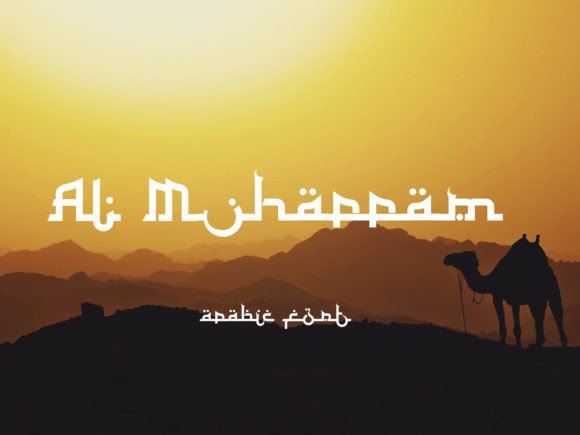
Step into the enchanting world of Al Muharram, a decorative font family that will transport your designs to the heart of classic Arabic calligraphy. Artnivora.std, the mastermind behind this exquisite creation, has crafted a font that oozes elegance and sophistication.
With its sweeping curves, intricate details, and timeless appeal, Al Muharram is more than just a font; it's an artistic masterpiece that elevates your designs to new heights of creativity. Whether you're working on stunning banner messages, alluring logos, eye-catching posters, or captivating social media graphics, Al Muharram is the perfect choice to add a touch of magic to your projects.
Imagine your banner messages adorned with the intricate beauty of Al Muharram, captivating your audience with its timeless allure. Each letter, meticulously crafted with the finest attention to detail, dances across your designs like a symphony of visual delight.
Unleash your creativity and let Al Muharram take you on a journey through the rich tapestry of Arabic calligraphy. Its unique charm and undeniable beauty will leave a lasting impression, turning ordinary designs into extraordinary works of art.
Al Muharram is not just a font; it's an experience that awakens the senses and ignites the imagination. Its intricate details and flowing strokes evoke a sense of wonder, transporting you to a world where words come alive and stories unfold with every letter.
Don't settle for ordinary fonts that blend into the background. Choose Al Muharram and let your designs shine with the brilliance of a thousand stars. Embrace the beauty of classic calligraphy and embark on a creative journey that will leave you breathless.